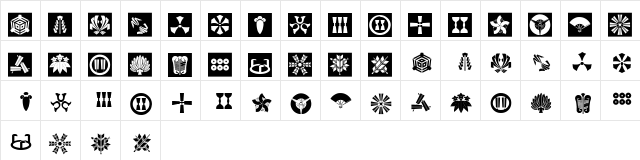
Orient Pattern Dings Set 3 Regular
Design Context for Orient Pattern Dings Set 3 Typeface
Orient Pattern Dings Set 3 is a composed and adaptable typeface that performs quietly and consistently across a wide range of design contexts.